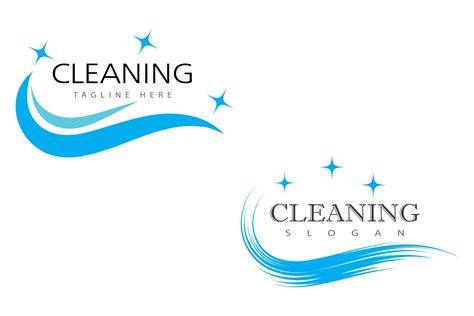
The Benefits Of Cleaning Service Fonts In 2023
What Are Cleaning Service Fonts?
Cleaning service fonts are typographic fonts that have been specially designed for cleaning service businesses. The fonts are designed to communicate a sense of professionalism and reliability that is associated with the cleaning industry. The fonts are also designed to be easy to read and understand, making it easier for customers to identify the services offered by a cleaning company. Cleaning service fonts are available in a variety of styles, ranging from traditional serif fonts to modern sans-serif fonts.
What Are the Benefits of Cleaning Service Fonts?
Cleaning service fonts offer numerous benefits. First of all, they help to create a professional brand image for a cleaning business. When customers see a cleaning service with a logo featuring a professional-looking font, they will be more likely to trust the services offered. Additionally, the fonts can help to make a company’s website, brochures, and other marketing materials look more professional and polished. Furthermore, the fonts can help to make a cleaning service’s website more accessible and easy to read for customers.
What Are the Different Types of Cleaning Service Fonts?
There are a variety of cleaning service fonts available. Traditional serif fonts, such as Times New Roman and Garamond, are popular choices for cleaning service logos and websites. These fonts offer a classic look that is associated with professionalism and reliability. Modern sans-serif fonts, such as Arial and Helvetica, are also popular choices for cleaning service logos and websites. These fonts are less ornate than traditional serif fonts but still convey a sense of sophistication and professionalism.
How Can I Choose the Right Cleaning Service Font?
When choosing a cleaning service font, it’s important to consider the overall look and feel of the company’s website and other materials. The font should convey the company’s message and values while also being easy to read and understand. Additionally, the font should be appropriate for the type of business. For example, a font that is too ornate or modern might not be suitable for a traditional cleaning service. It’s also important to make sure that the font is compatible with the company’s website and other materials.
Why Are Cleaning Service Fonts Important in 2023?
Cleaning service fonts are important in 2023 because they help to create a professional brand image for a cleaning business. Cleaning service fonts should be used on company websites, brochures, and other marketing materials in order to create a sense of professionalism and trustworthiness. Additionally, the fonts should be easy to read and understand in order to make the website more accessible and easier to navigate for customers. Finally, the fonts should be appropriate for the type of cleaning service in order to create a cohesive and professional brand image.